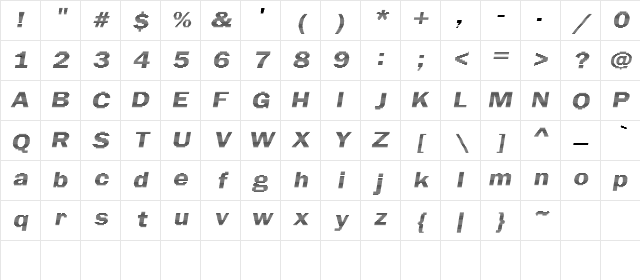
Linear Beam 0.5 Free Font
Linear Beam 0.5
Style: 0.5
Linear Beam Family
Design Context for Linear Beam
Linear Beam is a composed and adaptable typeface that performs quietly and consistently across a wide range of design contexts.